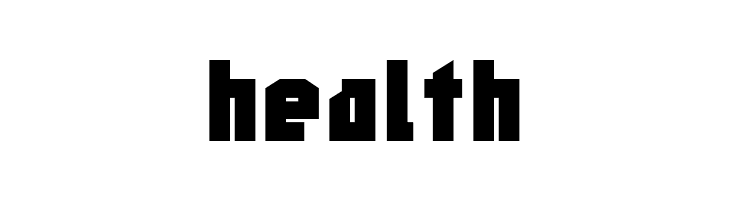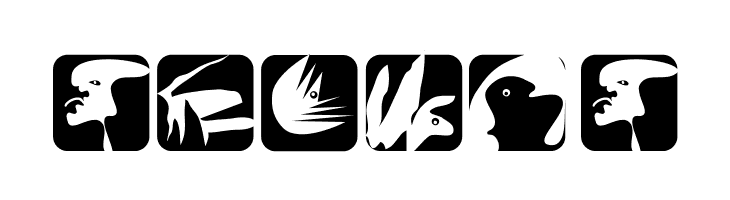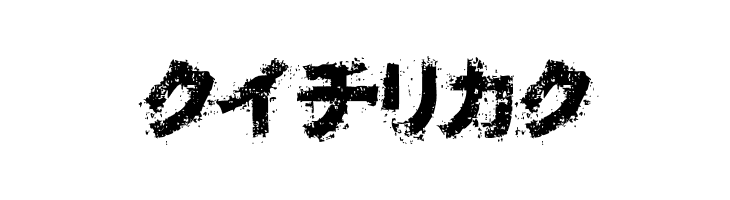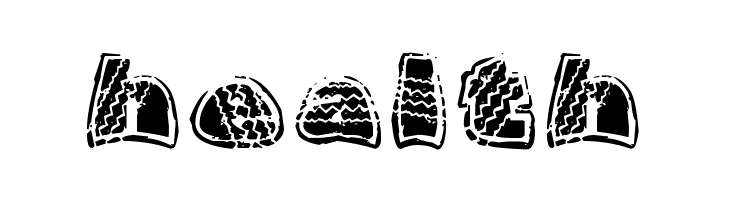
• OsakashiBoldKana
• OtherShapes
Abstract symbol font with organic and geometric shapes in square icons.
• Ouhow Black
A bold, geometric font with sharp angles and a modern, edgy style.
• Our Gang NF
A bold, playful font with a vintage flair and strong visual impact.
• OurGangNF
A bold, playful font with a strong, condensed style.
• OurLittleDarlings-One
A playful and whimsical cartoon-style font with detailed illustrations.
• OverRide DSG
• Owah Tagu Siam NF
A bold, decorative font with high contrast and artistic letterforms.
• OwahTaguSiamNF
A modern decorative font with bold, looped serifs and artistic detailing.
• Packard Clipper NF
A bold, geometric font with Art Deco influences, perfect for vintage-inspired designs.